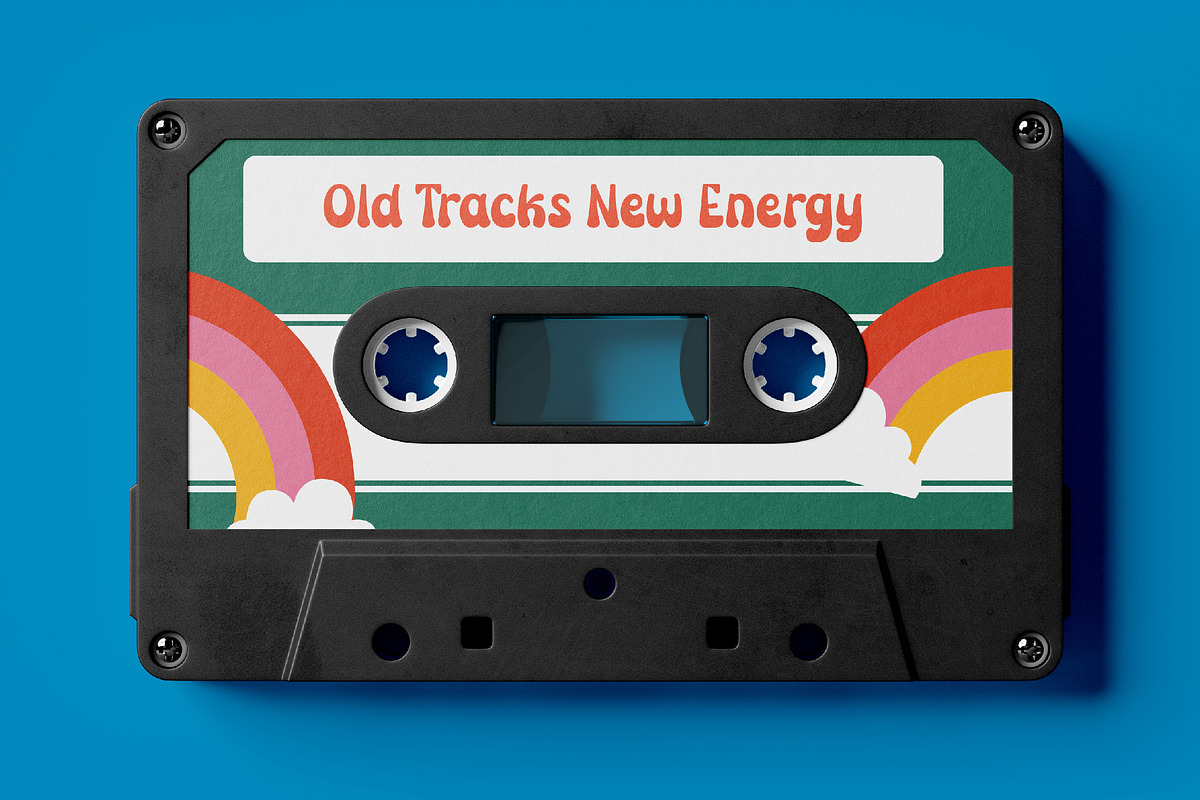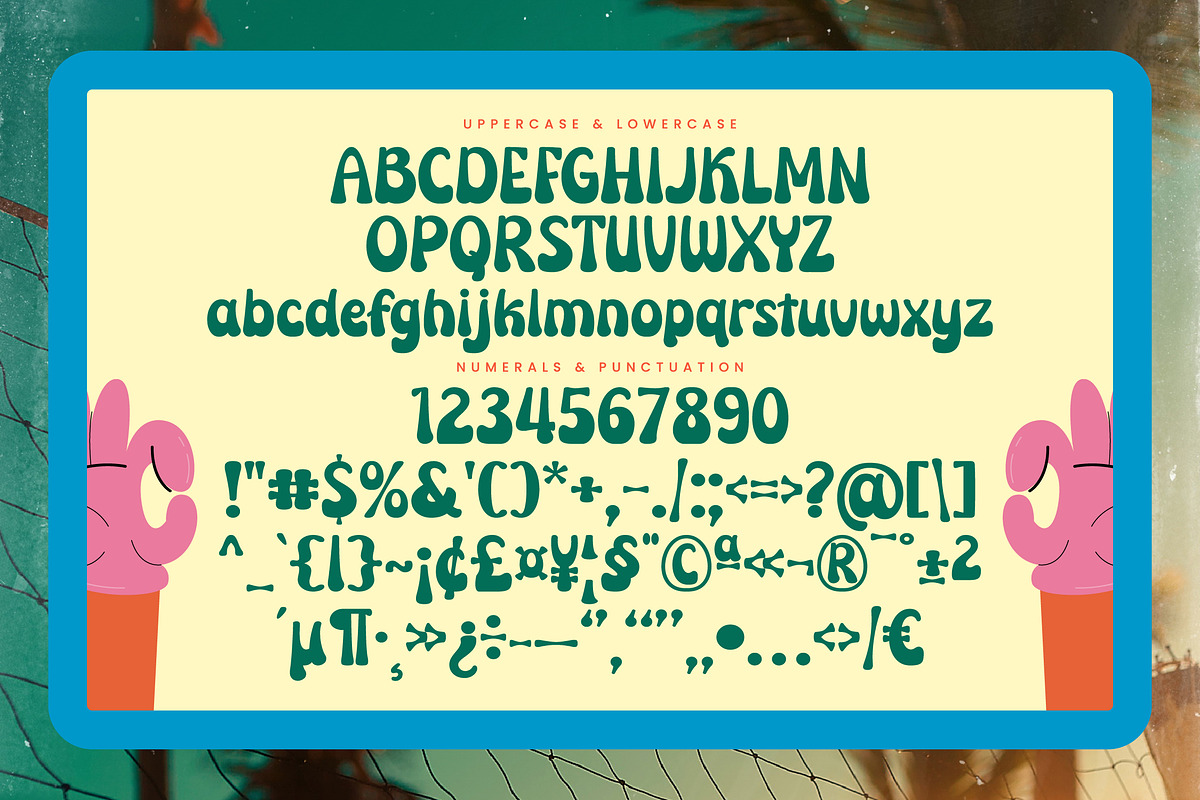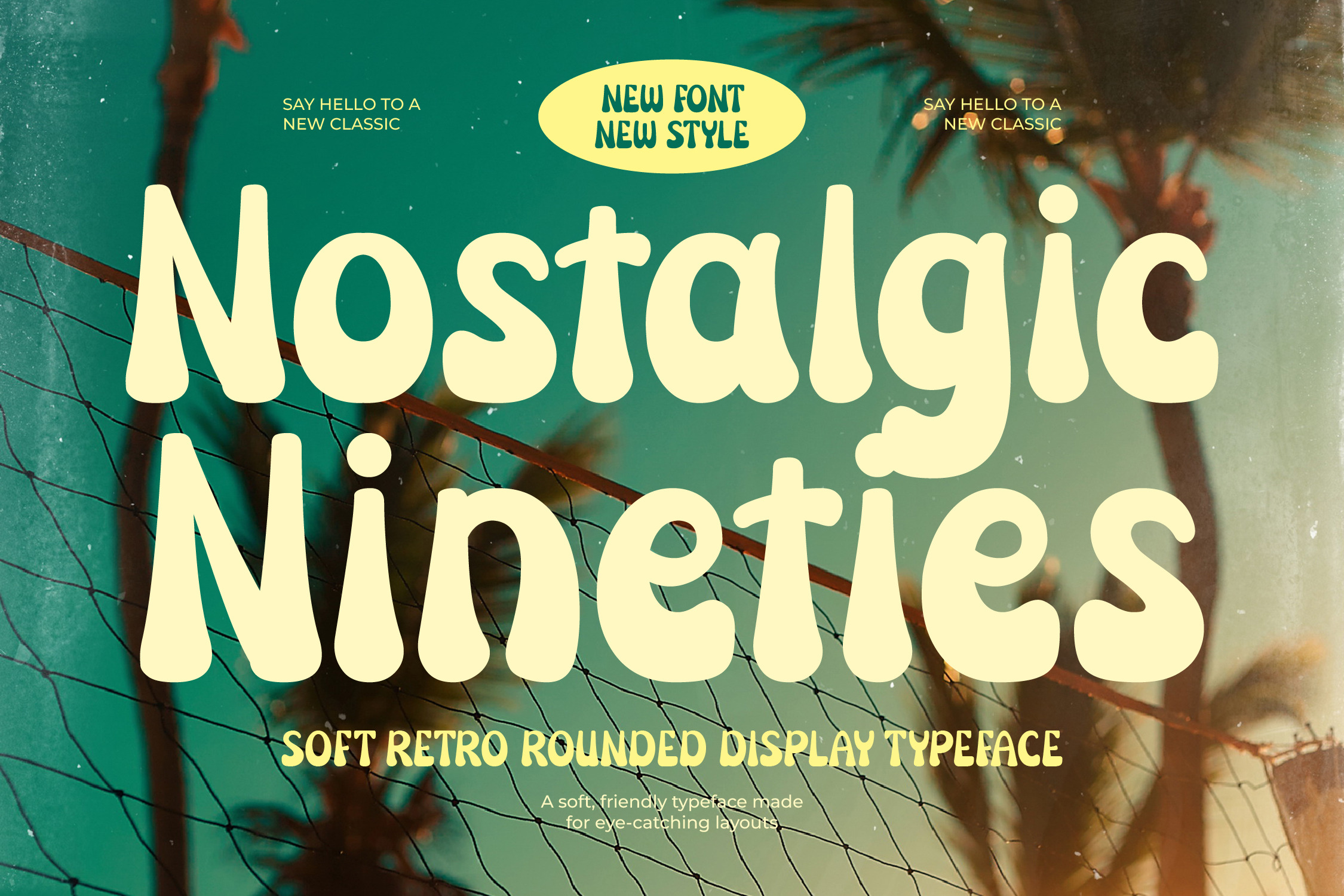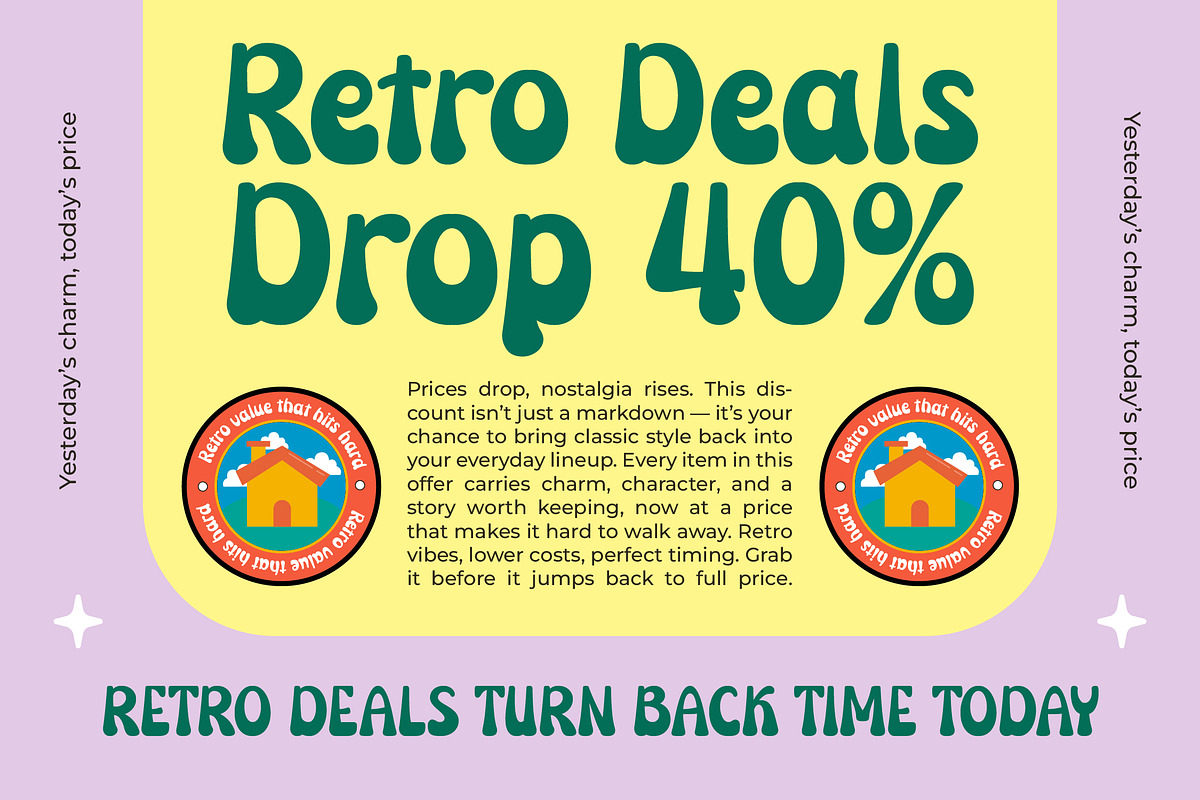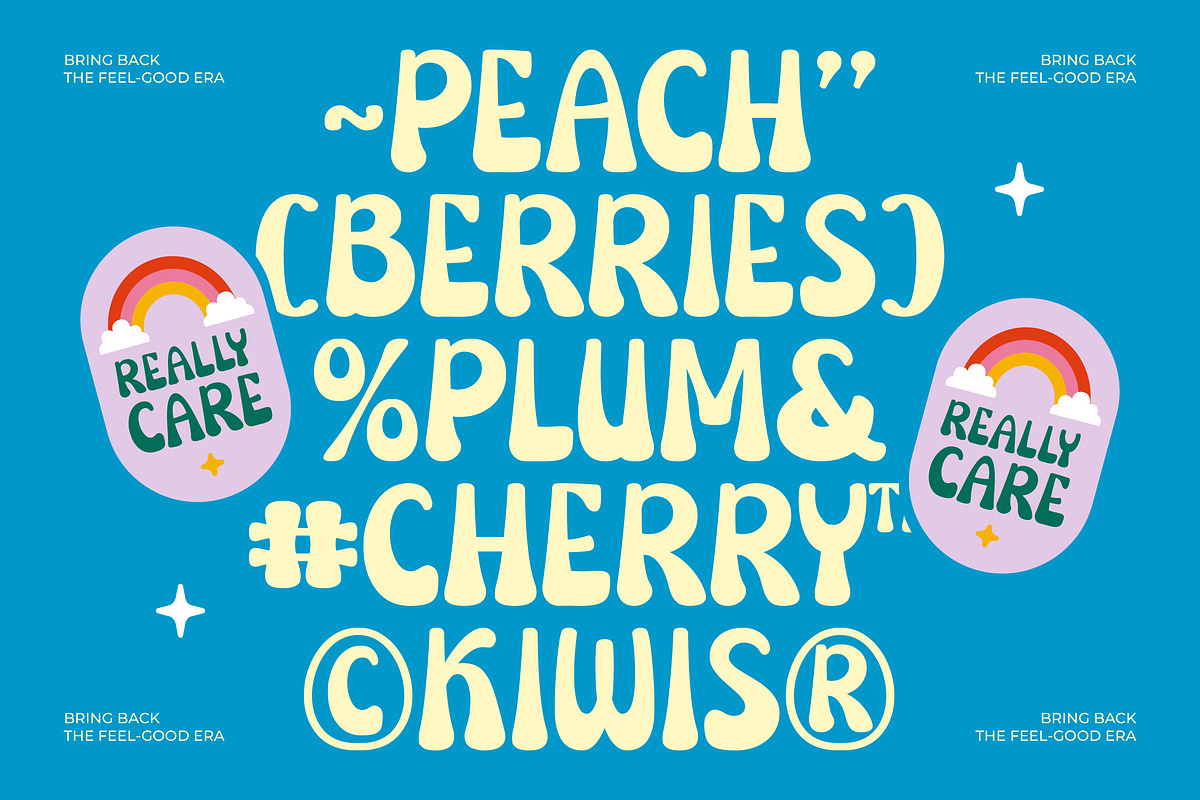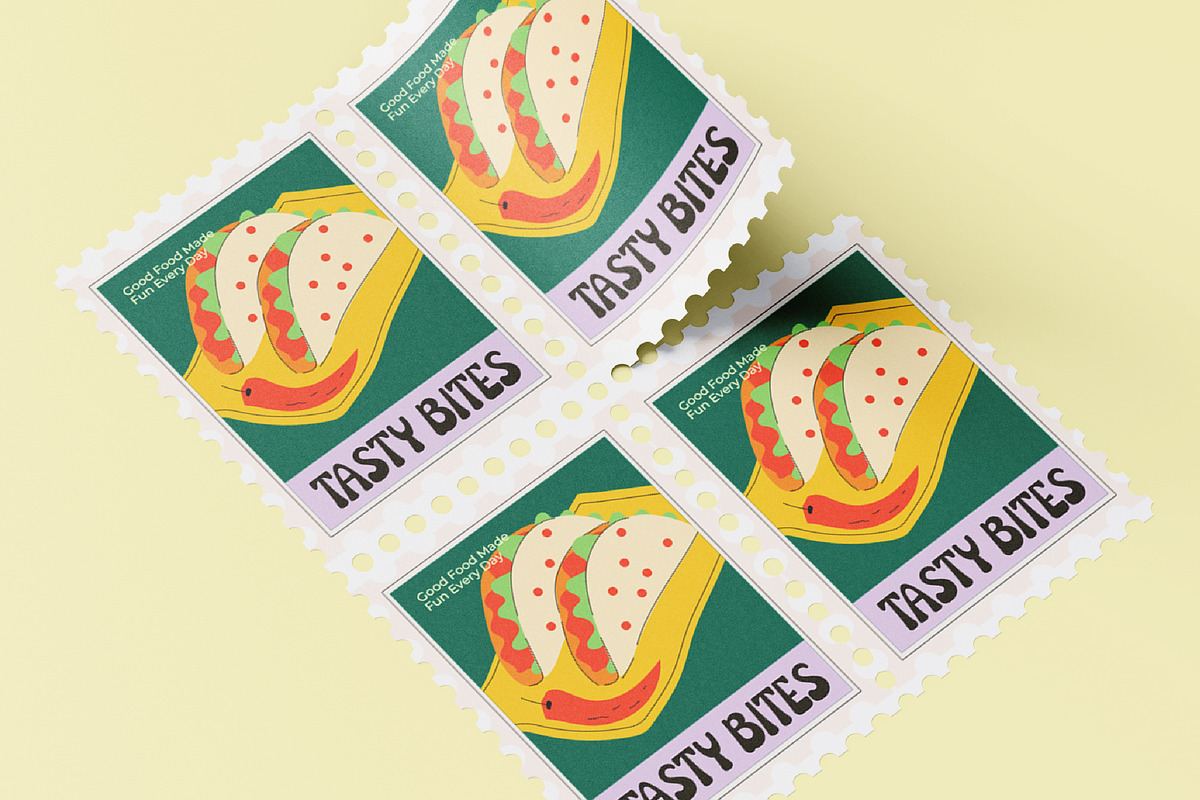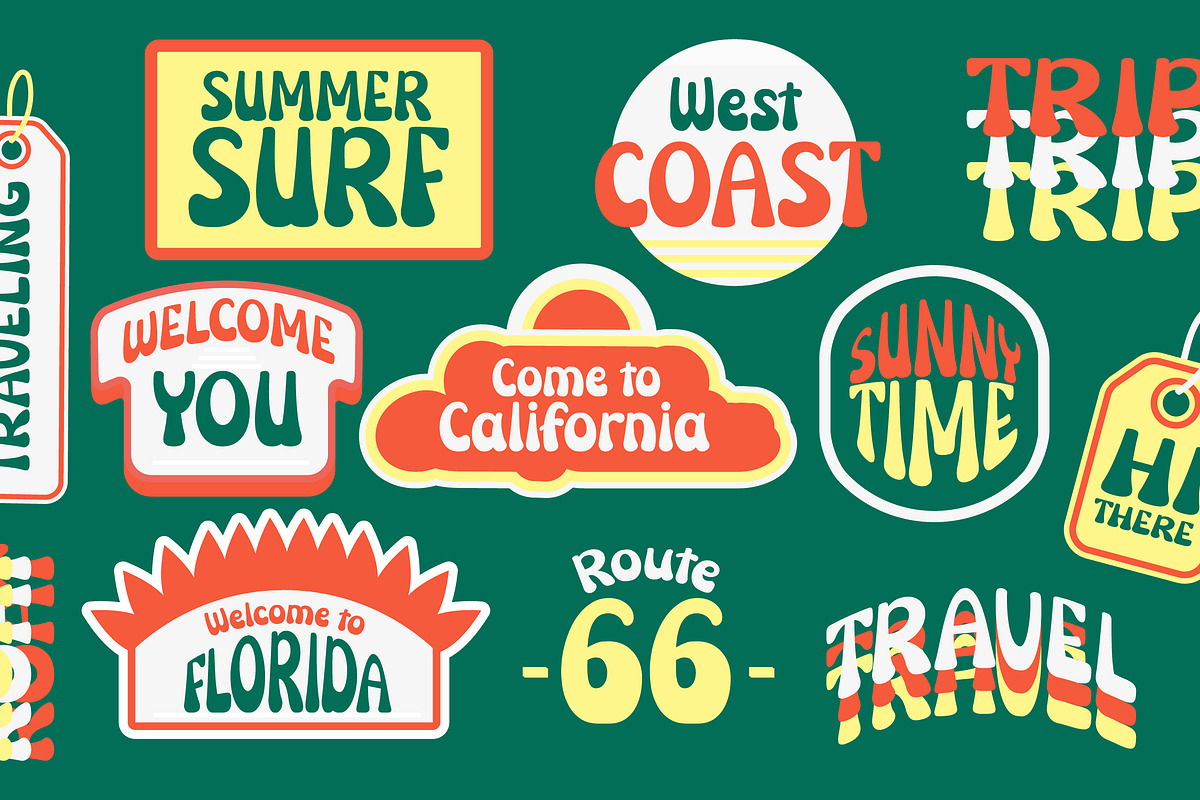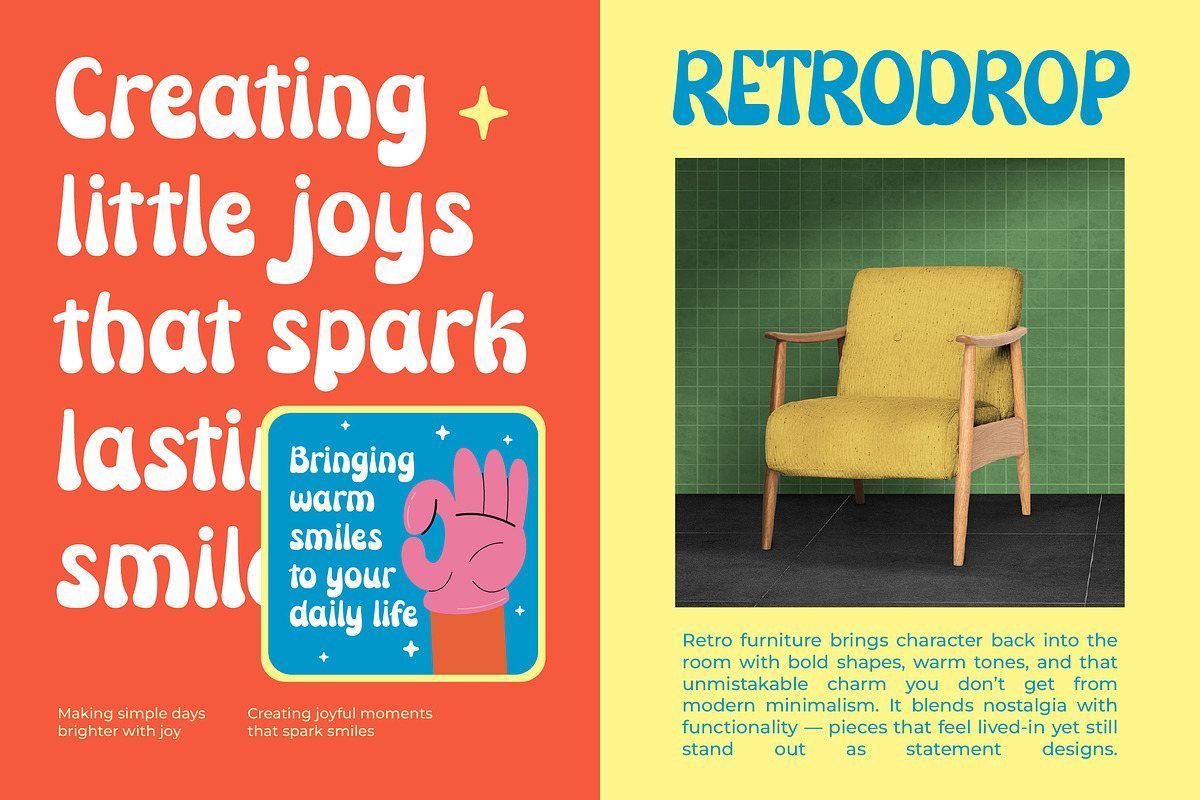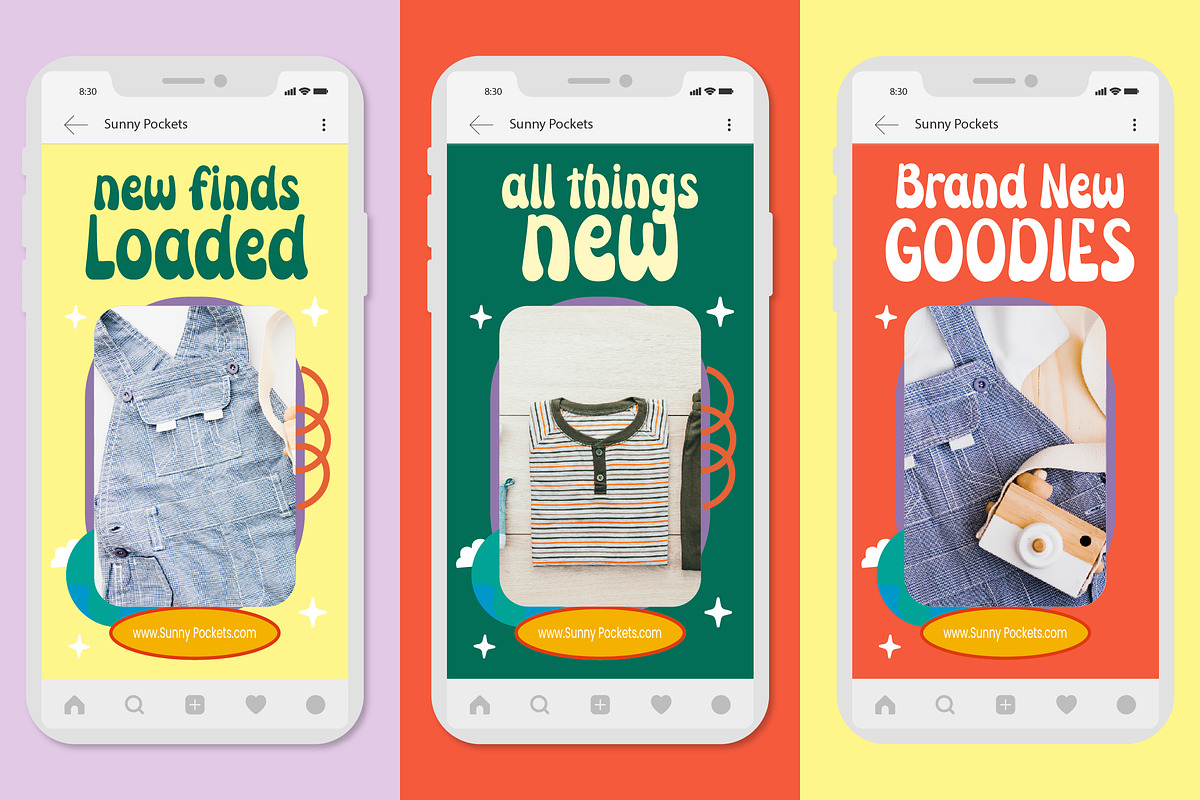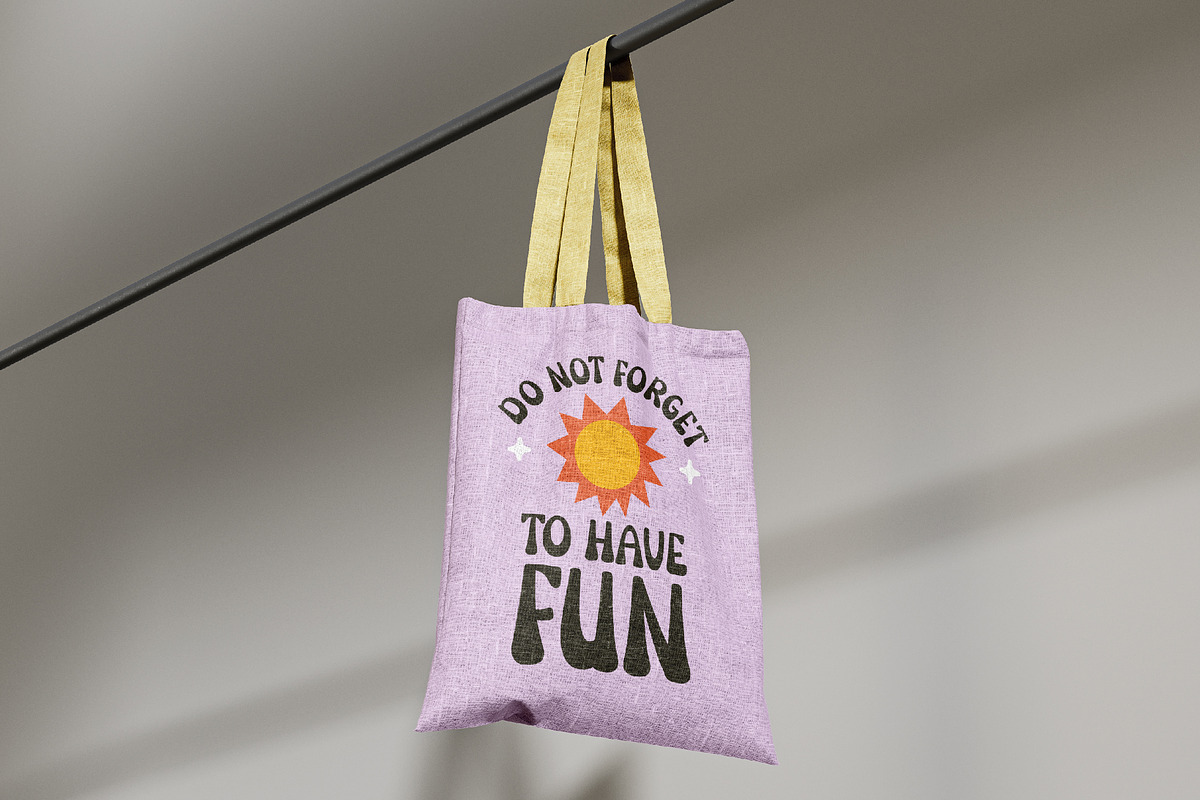
Nostalgic Nineties Retro Typeface
Nostalgic Nineties Retro Sans Serif Font
Nostalgic nineties retro sans serif font is a unique, modern geometric font with a retro, vintage, unique, elegant, modern, and geometric style. It is a sans-serif font perfect for branding projects, logos, social media posts, product packaging, labels, etc.